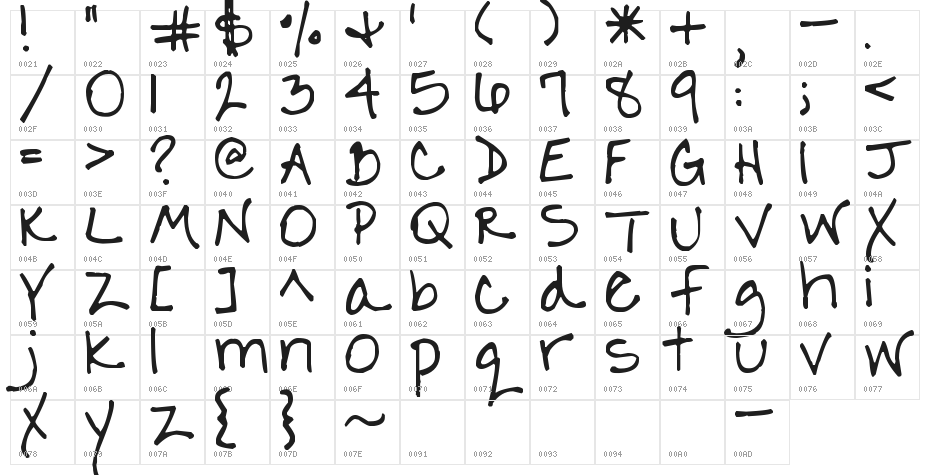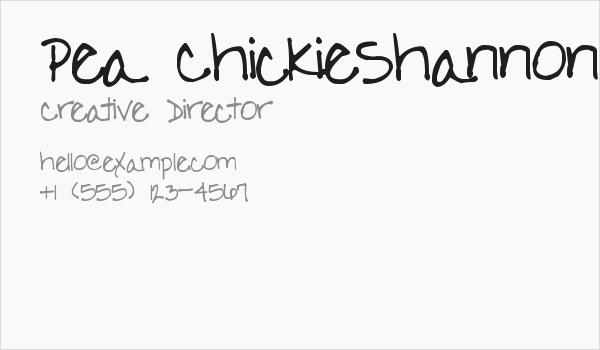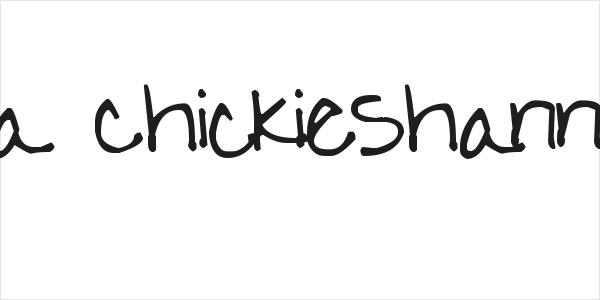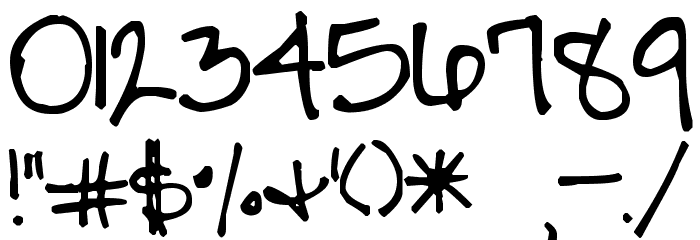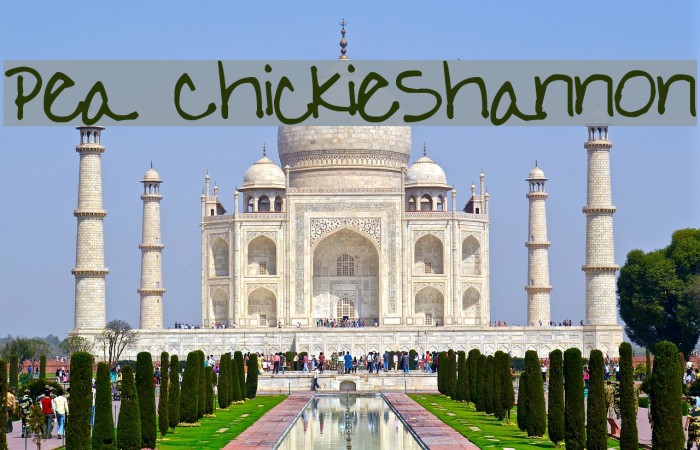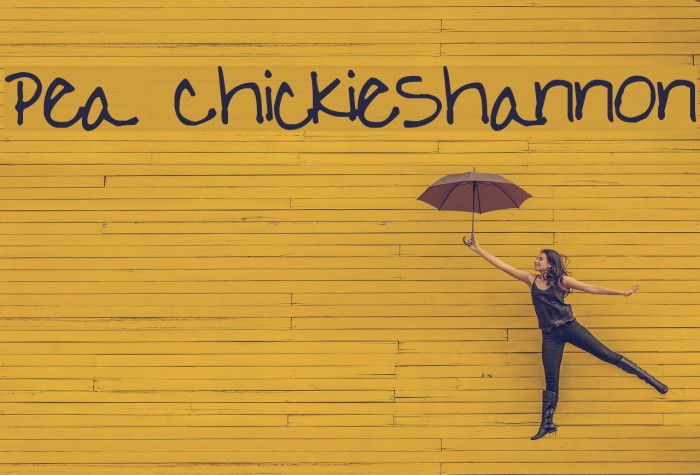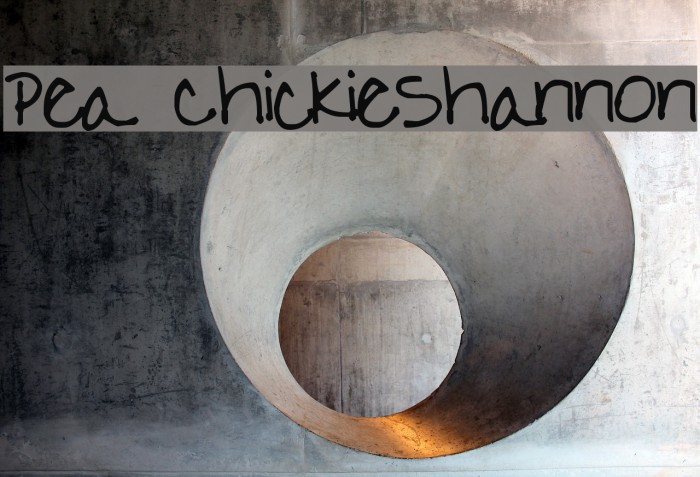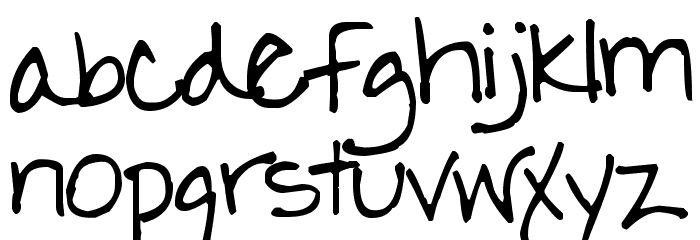
Pea ChickieShannon Font
Pea ChickieShannon Description
This playful and whimsical handwritten font exudes a casual and friendly vibe. The letters are slightly uneven, with a natural flow that mimics authentic handwriting. The strokes are bold and consistent, providing a clear and legible appearance. The font maintains a lively character, making it suitable for informal and creative projects. Its unique style adds a personal touch, perfect for conveying warmth and approachability.
| Overall Style | Casual |
| Use Case | Headlines, Informal text, Creative projects |
| Proposed Projects | Ideal for greeting cards, children's books, personal blogs, and creative branding. |